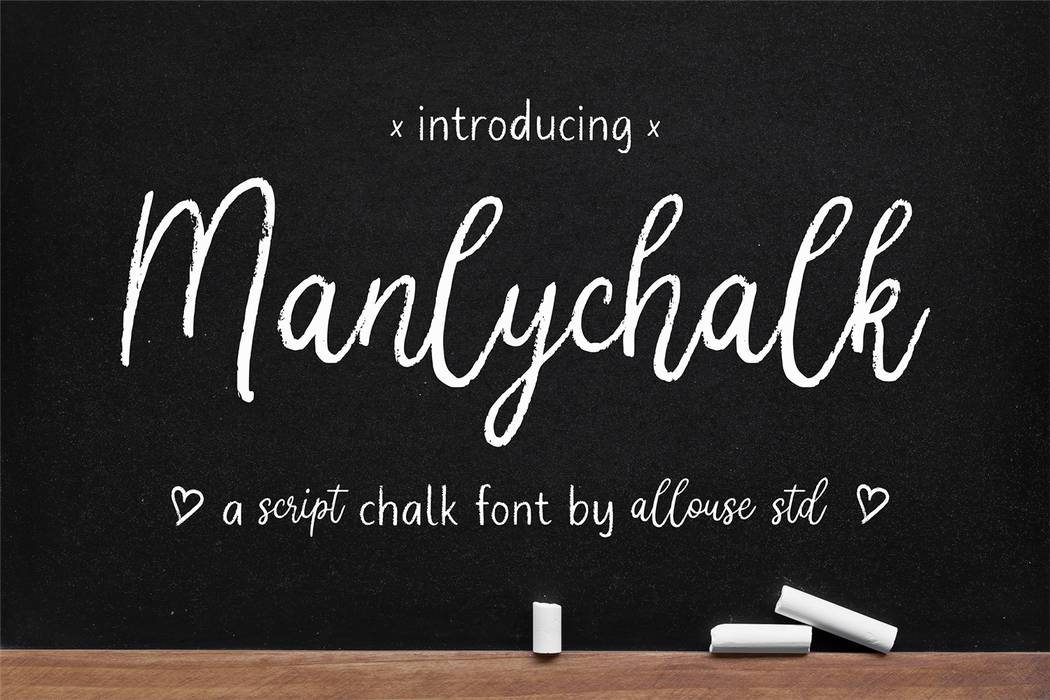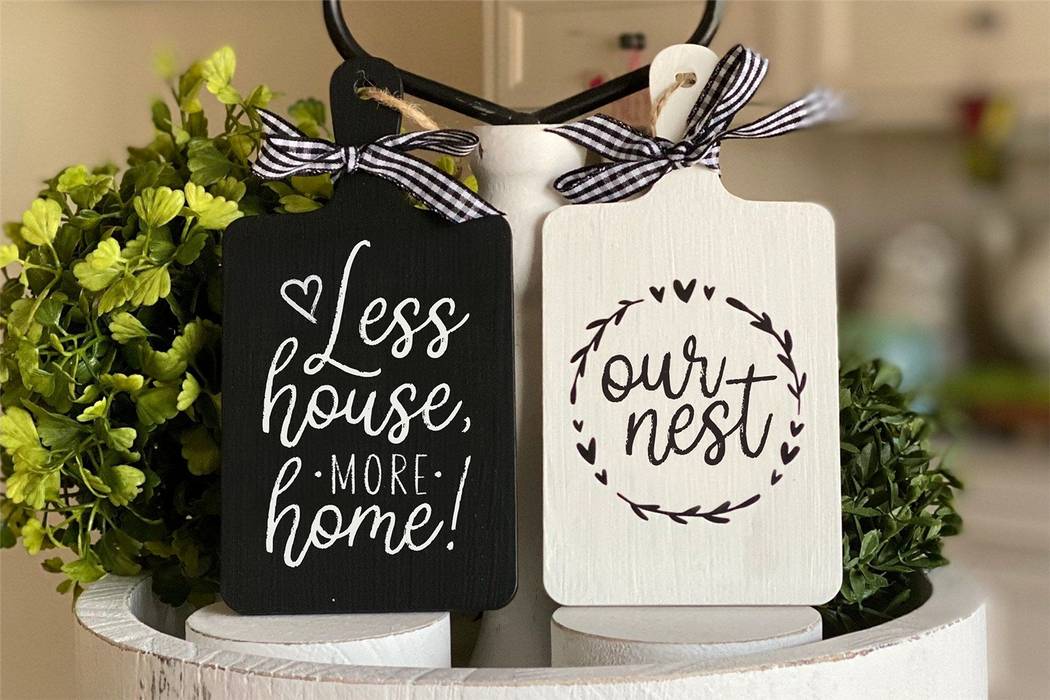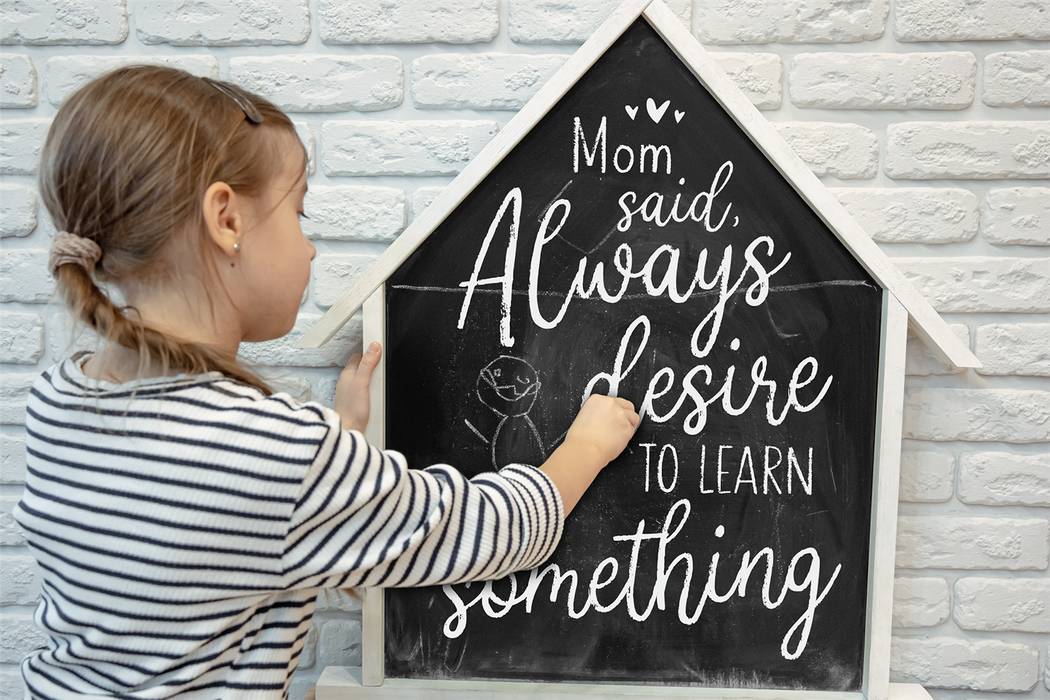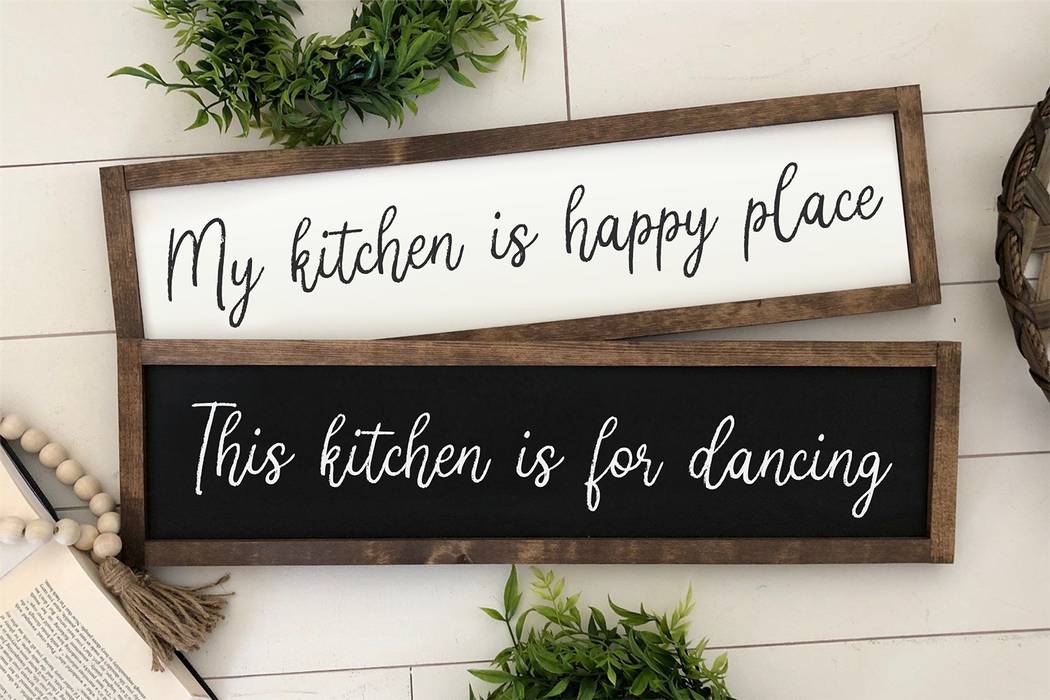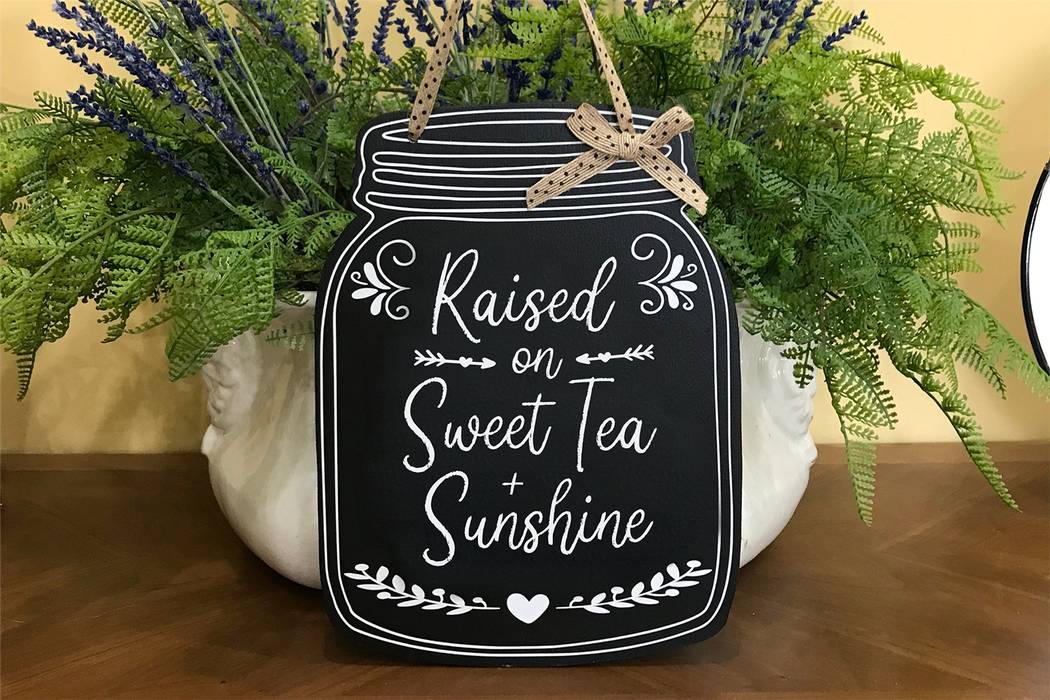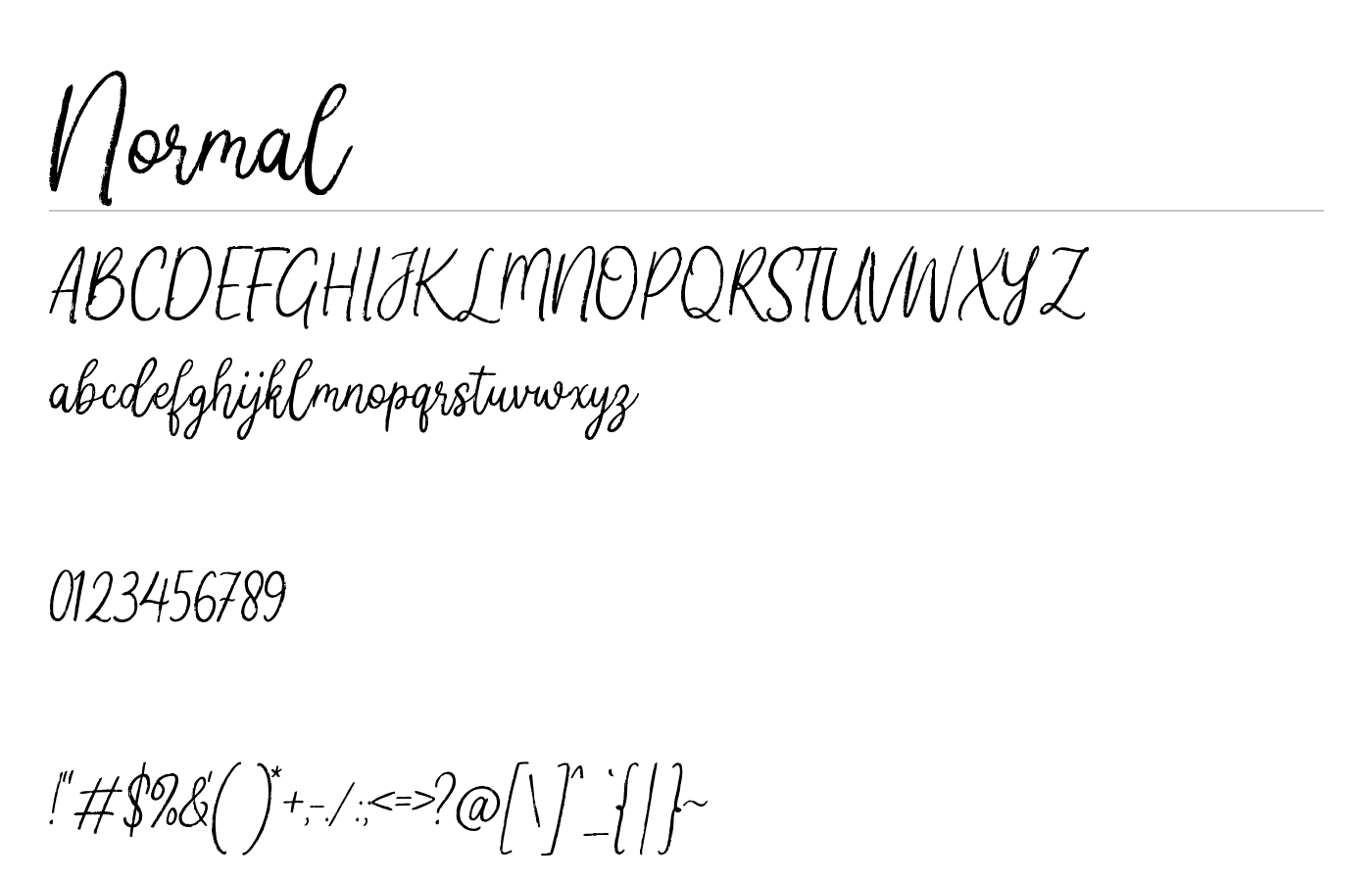
Manlychalk is a slender, casual script font with a hand-drawn, chalk-like texture that gives it a friendly and approachable feel. Its tall, narrow letterforms and smooth, flowing strokes make it perfect for creative, informal designs such as greeting cards, branding for playful businesses, or social media graphics that want to convey a personal touch. This font works well in headlines or short texts where a warm, handcrafted style is desired.
Manlychalk Font